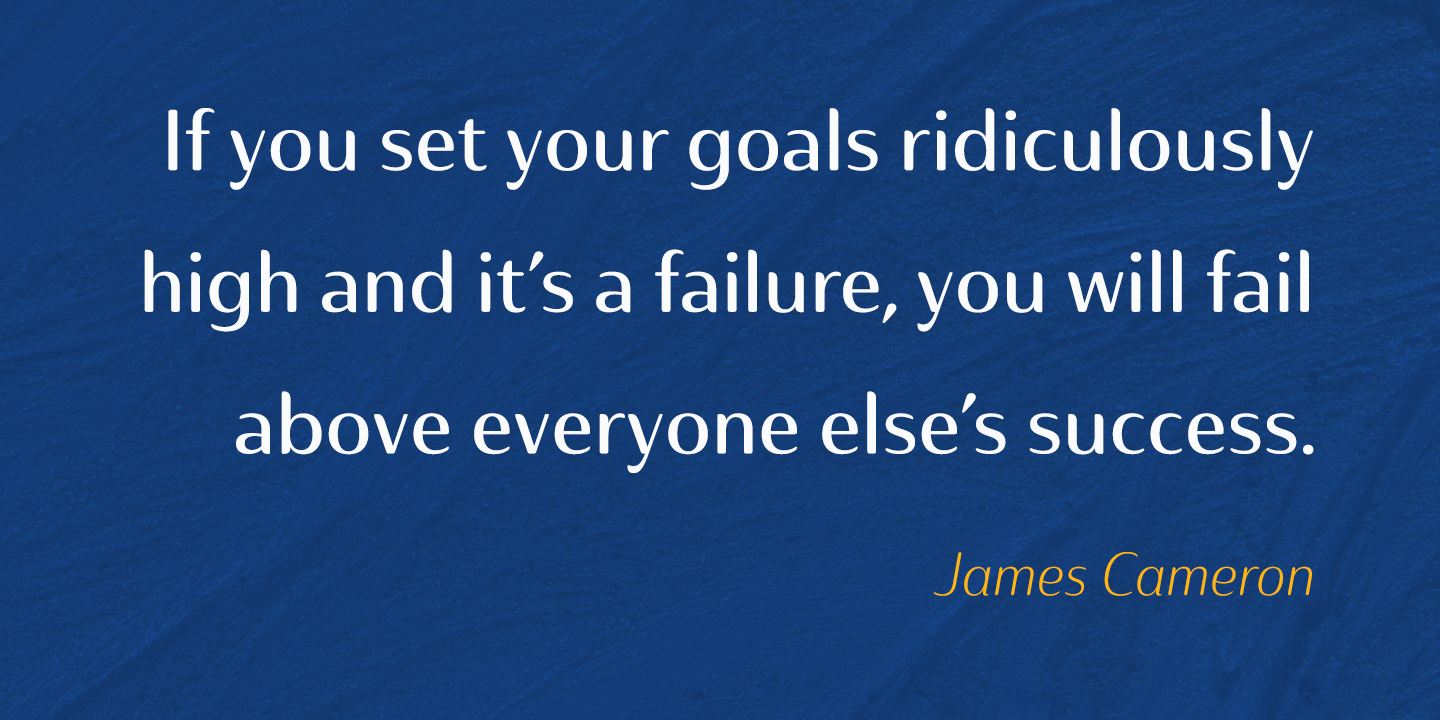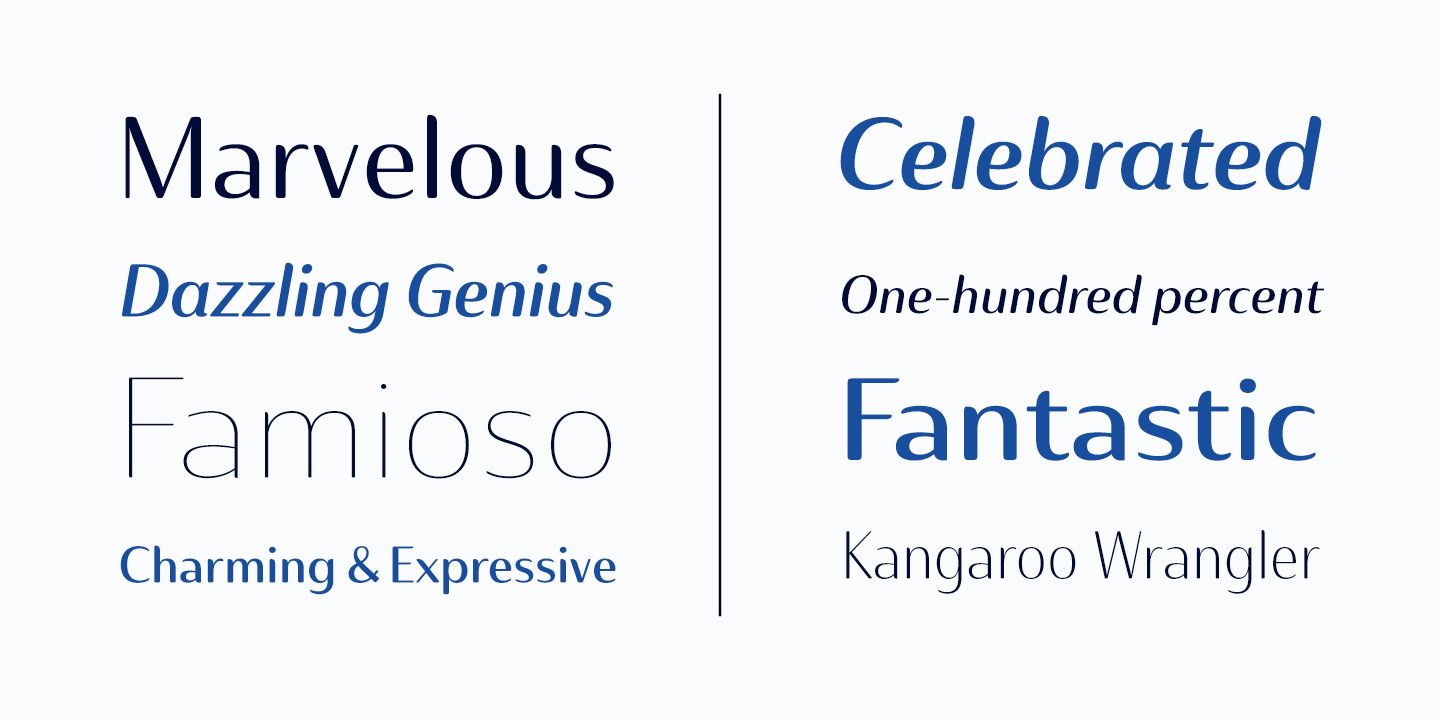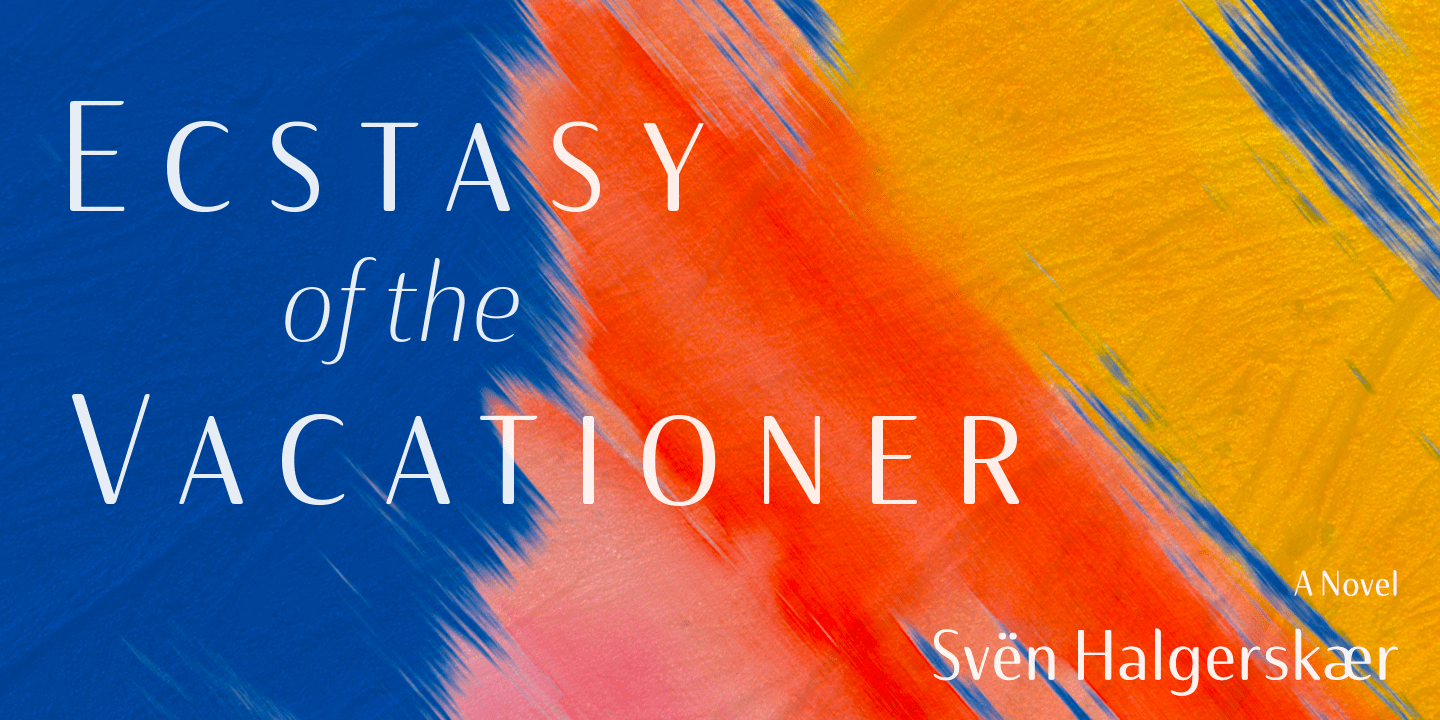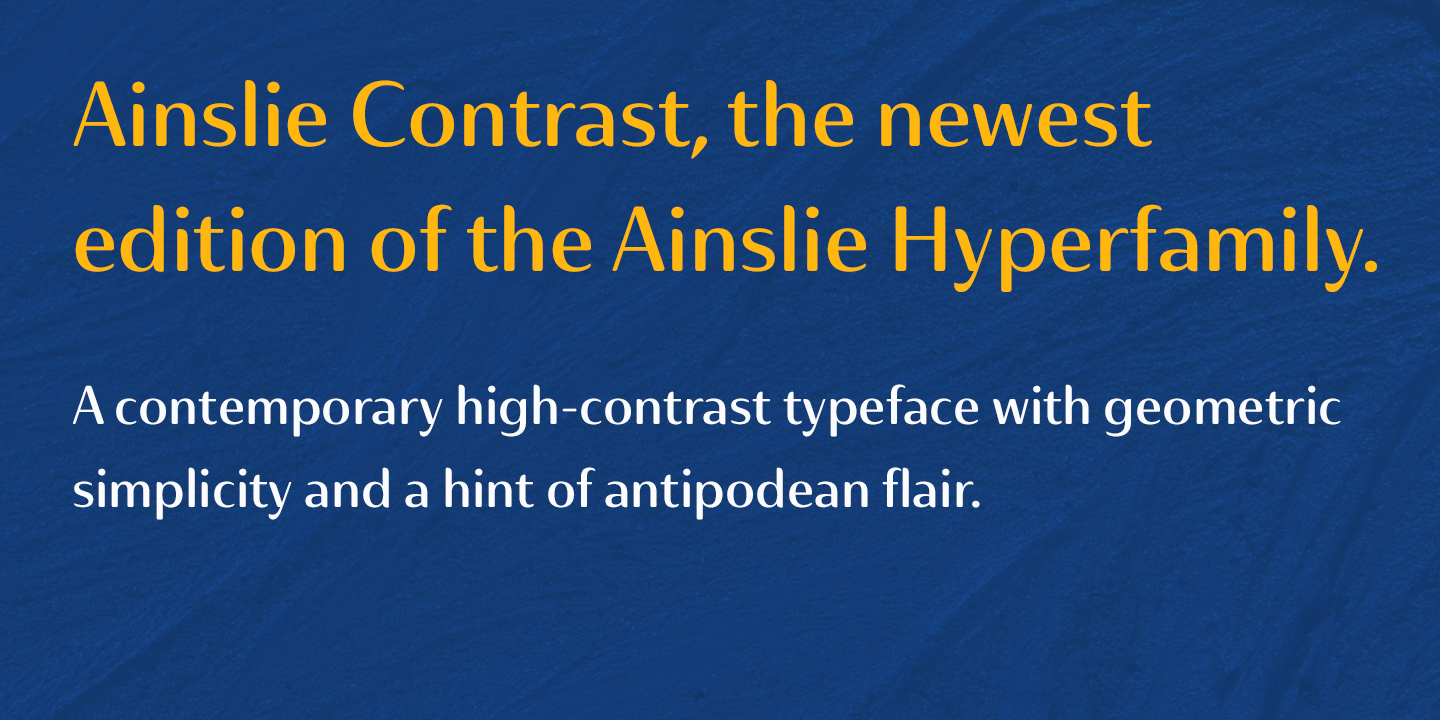
About Ainslie Contrast
Ainslie Contrast is the newest in the Ainslie series, named for the famous mountain overlooking the Australian city of Canberra. The Ainslie series currently consists of four typefaces. The Ainslie design is very unique and originally began life as a…